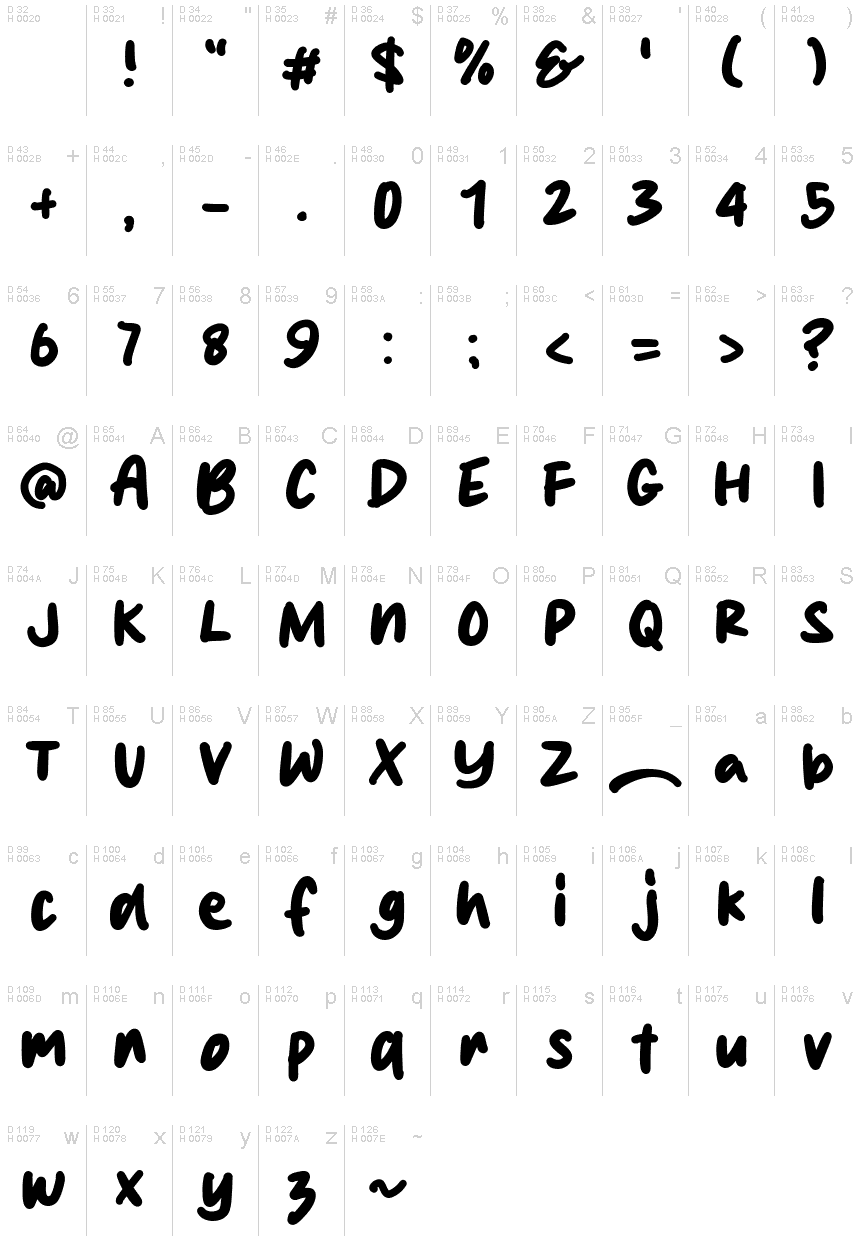
SMASH
SMASH, the bold and vibrant handwritten font by MJType is perfect for projects that require a touch of creativity and energy. Its semi-expanded width adds a unique twist to the traditional handwritten style, making it ideal for branding, advertising, and social media graphics. Whether you're designing a logo for a new business or creating eye-catching posters for an event, SMASH's bold and expressive strokes will make your message stand out. Use it to add personality and character to your next project - this semi-bold font is sure to leave an impact!